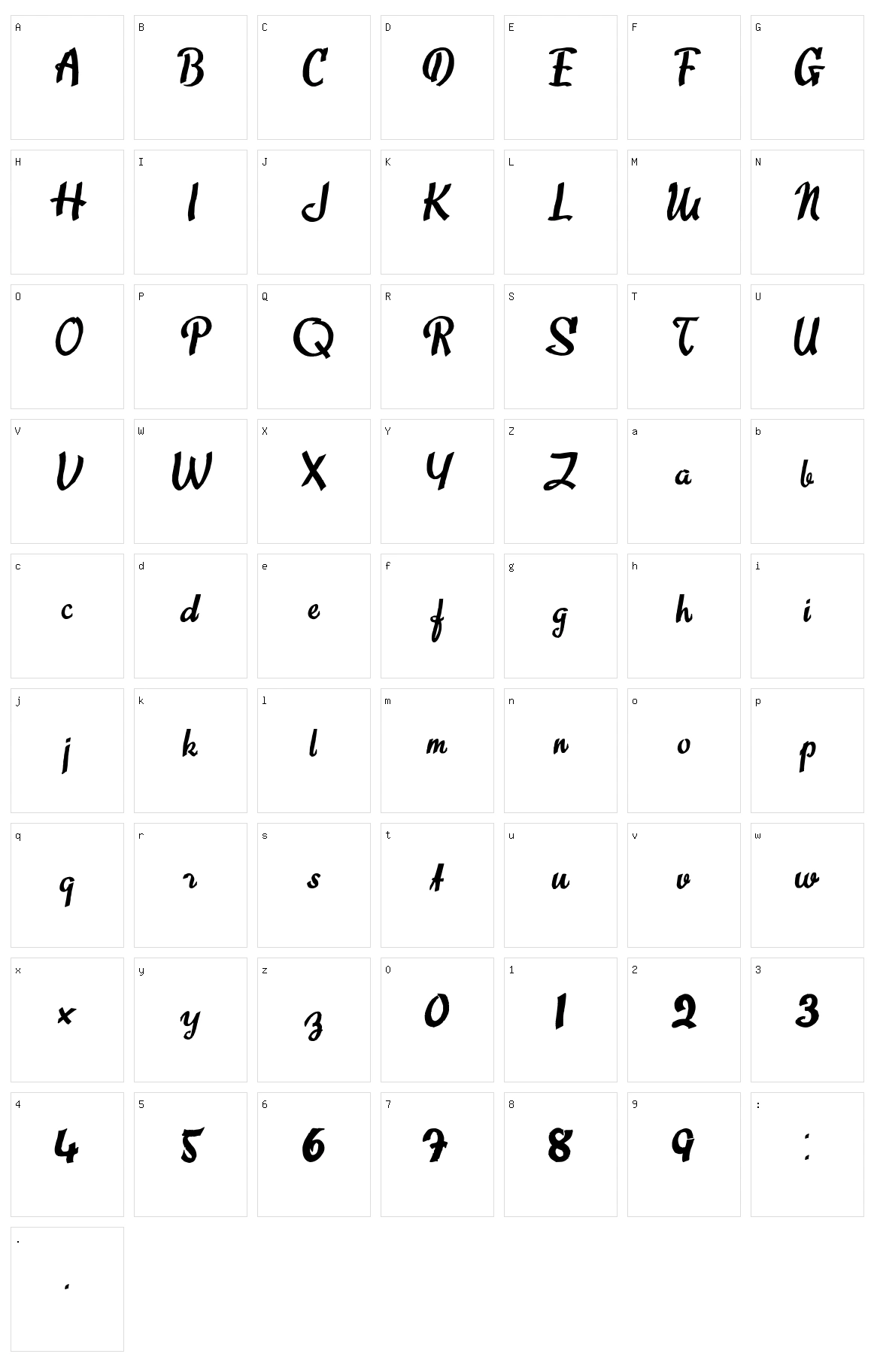
The free font Sweet About is carefully designed by Intellecta Design, showcasing a thoughtful balance of creativity and usability and falls under the Script font style. When you download the ZIP file, it contains only 200.9 KB of font files, making it lightweight and quick to download. Please review the license details below to understand permitted usage and distribution rights. If license information is not available, we recommend using this font for personal projects only or contacting the author directly for commercial usage permissions.